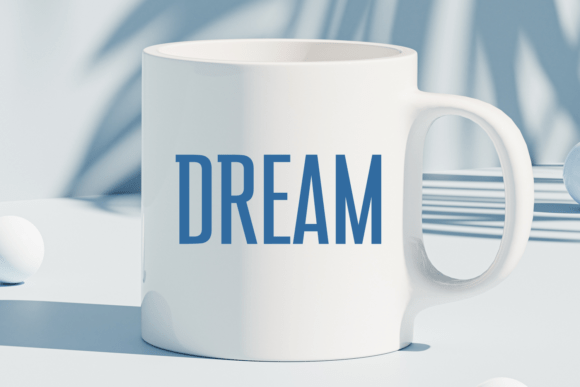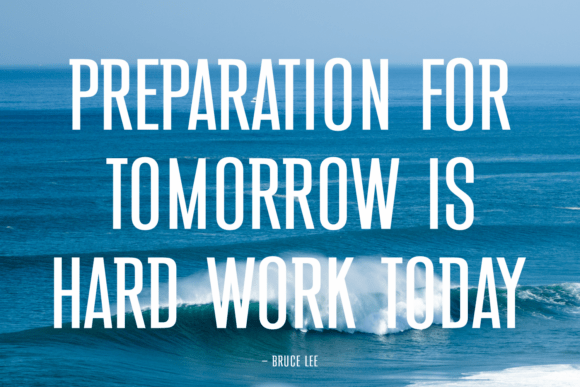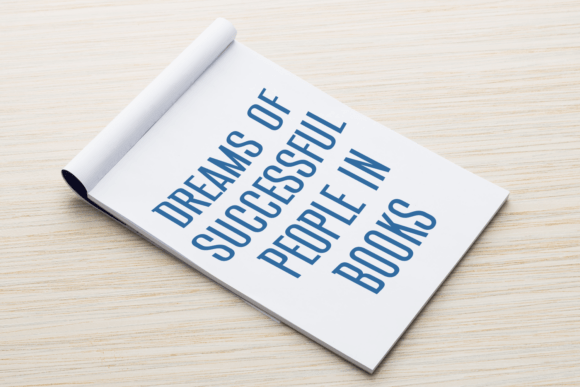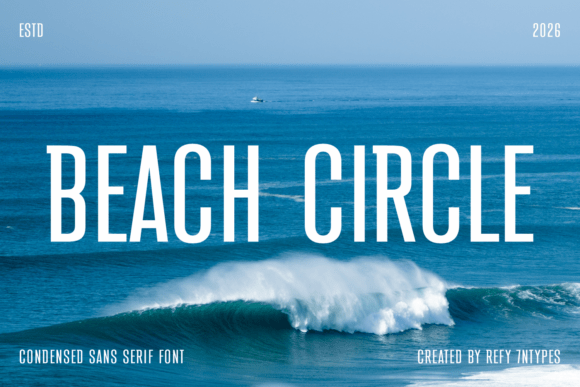
Introducing Beach Circle Fonts: The Ultimate Blend of Modern and Minimalist Design
In the world of typography, finding the perfect font that balances elegance and functionality can be a daunting task. However, with Beach Circle Fonts, designers and crafters can now unleash their creativity with a sleek yet strong visual appeal. This condensed sans font is the ultimate blend of modern and minimalist design, making it an ideal choice for a range of applications.
A Perfect Balance of Elegance and Functionality
Beach Circle Fonts boasts a unique and understated allure that makes it perfect for various design projects. Its clean lines and tall, narrow structure are perfect for stand-out banner designs or smart, professional digital products. The font’s bold charm is equally at home with elegant fashion branding, crafting an unforgettable logo design, or styling up a product label.
One of the standout features of Beach Circle Fonts is its versatility. This font can transform a simple t-shirt, a coffee mug, or even packaging into a statement of style. Whether you’re a designer looking to create a stunning visual identity for a brand or a crafter looking to add a personal touch to your DIY projects, Beach Circle Fonts is the perfect choice.
All-Caps Display for Bold Visual Impact
Beach Circle Fonts features an all-caps display that offers a bold visual impact with a simplified aesthetic. The font’s condensed design makes it perfect for headlines, titles, and other applications where a strong visual statement is needed. The clean lines and minimalist design ensure that the font remains legible even at smaller sizes, making it perfect for a range of applications.
Design Applications
Beach Circle Fonts is an incredibly versatile font that can be used in a wide range of design applications, including:
• Elegant fashion branding and logo design
• Attention-grabbing magazine headlines and titles
• Stand-out banner designs and signage
• Smart, professional digital products
• Custom product labels and packaging
• DIY projects, including custom vinyl decals and paper crafts
Why Choose Beach Circle Fonts?
So, why choose Beach Circle Fonts over other fonts on the market? Here are just a few reasons:
• Unique and modern design: Beach Circle Fonts boasts a unique and modern design that sets it apart from other fonts.
• Versatility: The font can be used in a wide range of applications, from elegant fashion branding to DIY projects.
• Clean lines and minimalist aesthetic: The font’s clean lines and minimalist design ensure that it remains legible even at smaller sizes.
In conclusion, Beach Circle Fonts is the ultimate blend of modern and minimalist design, offering a sleek yet strong visual appeal. Its versatility, clean lines, and minimalist aesthetic make it an ideal choice for a range of applications, from elegant fashion branding to DIY projects. With its compatibility with Cricut and Silhouette design tools, designers and crafters can easily unleash their creativity and produce stunning results. Whether you’re looking to create a stunning visual identity for a brand or add a personal touch to your DIY projects, Beach Circle Fonts is the perfect choice.